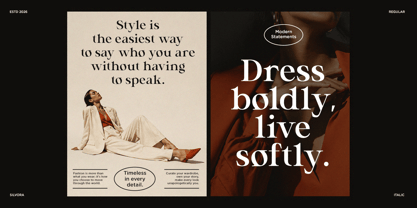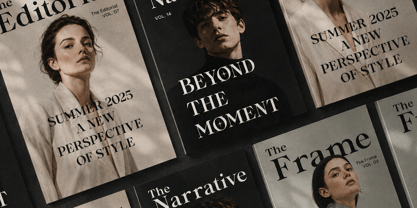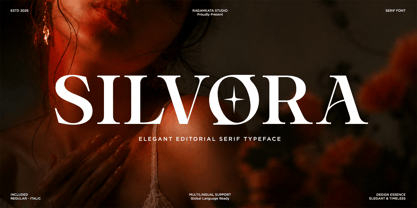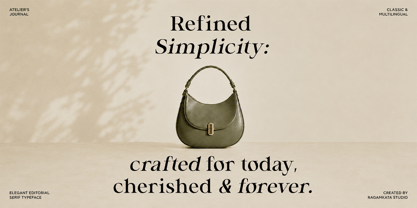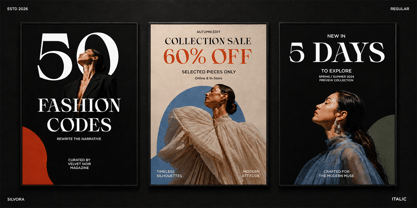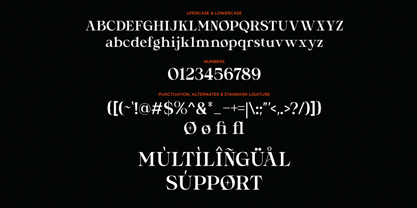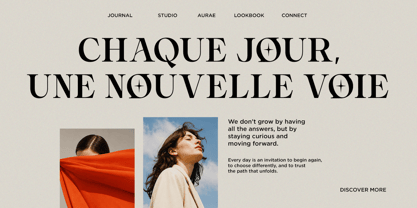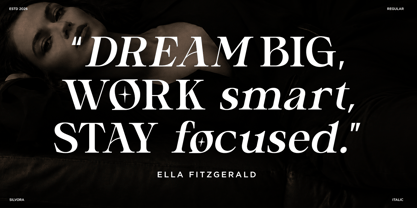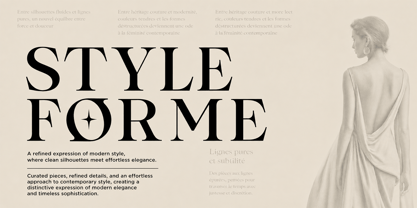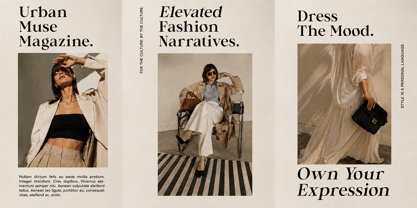
Silvora
by RagamKata
The Silvora Font Family was designed by Yogiswhara Dio Prakoso Riadi and published by RagamKata. Silvora contains 2 styles and family package options. More about this family
Silvora is an elegant editorial serif font designed to bring a sophisticated and luxurious character to modern typography. Its high-contrast letterforms, refined curves, and stylish proportions make it perfect for fashion-forward and premium visual identities.
Perfect for fashion magazines, editorial layouts, luxury branding, beauty campaigns, invitations, logos, packaging, posters, headlines, and social media designs. Silvora combines classic serif elegance with a contemporary fashion aesthetic.
With its distinctive and graceful appearance, Silvora is an excellent choice for designers looking to create premium, stylish, and memorable typography across both print and digital projects.
• Regular and Italic
• Special Alternates
• Uppercase and Lowercase
• Number, Symbol, and Punctuation
• Multilingual Support
Designers: Yogiswhara Dio Prakoso Riadi
Foundry: RagamKata